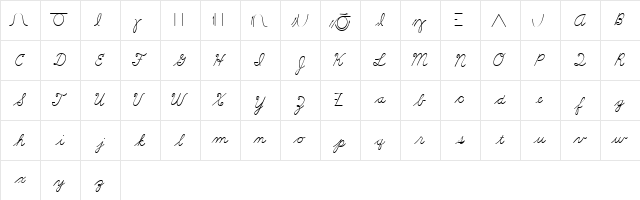
Learning Curve BV Regular
Design Context for Learning Curve BV Typeface
Learning Curve BV is a composed and adaptable typeface that performs quietly and consistently across a wide range of design contexts.